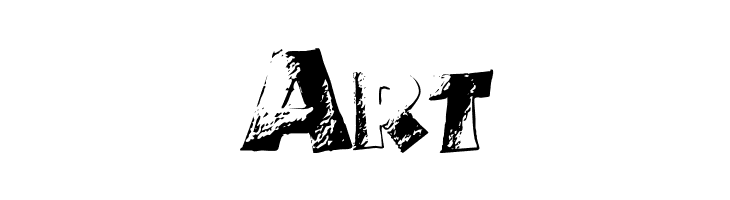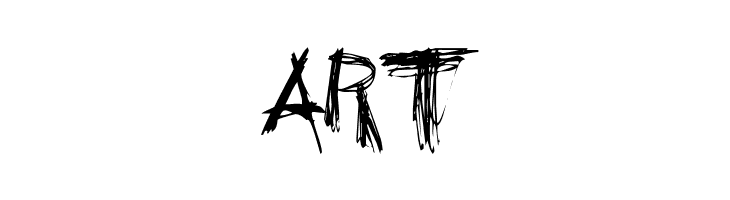
A bold, graffiti-inspired font with a hand-drawn, urban aesthetic.
A distressed, vintage-style font with a bold, textured appearance.
A bold, graffiti-inspired font with an urban, artistic style.
A bold, decorative font with intricate, swirling patterns inside each character.
A bold, textured font with a scratched, distressed appearance.
A bold, distressed font with jagged edges and a grunge-like, rebellious aesthetic.
A bold, distressed font with a grunge texture and rugged appearance.
A bold, distressed font with a rough, textured appearance ideal for edgy designs.
A bold, distressed font with a grunge texture, perfect for urban and edgy designs.
A bold, brush-stroke font with a dynamic and energetic style.
A bold, distressed font with a rugged, edgy texture.
A graffiti-inspired font with sharp, angular lines and dynamic, energetic characters.
A bold, distressed font with a gritty, urban texture.
A bold, edgy graffiti-style font with sharp angles and dynamic forms.
A grungy, distressed font with a splattered ink effect and irregular strokes.
A bold, distressed font with a grunge, eroded appearance.
A bold, cracked, and textured font with an edgy and dynamic style.
A bold, distressed font with a gritty, urban street art style.
A bold, distressed font with a grunge aesthetic and textured, irregular edges.
A bold, distressed font with a rugged, industrial style.
A bold, graffiti-inspired font with dynamic, angular strokes.
A bold, distressed font with a textured, grunge appearance.
A bold, distressed font with a grunge texture and rugged appearance.
A bold, distressed font with a rugged, industrial style.
A bold, distressed font with rough, textured edges and a grungy appearance.
A bold, graffiti-inspired font with dynamic and exaggerated strokes.
A bold, edgy font with sharp, angular strokes and a dynamic, intense style.
A bold, distressed font with a grunge aesthetic and textured splatters.
A bold, decorative font with intricate detailing and a vintage flair.